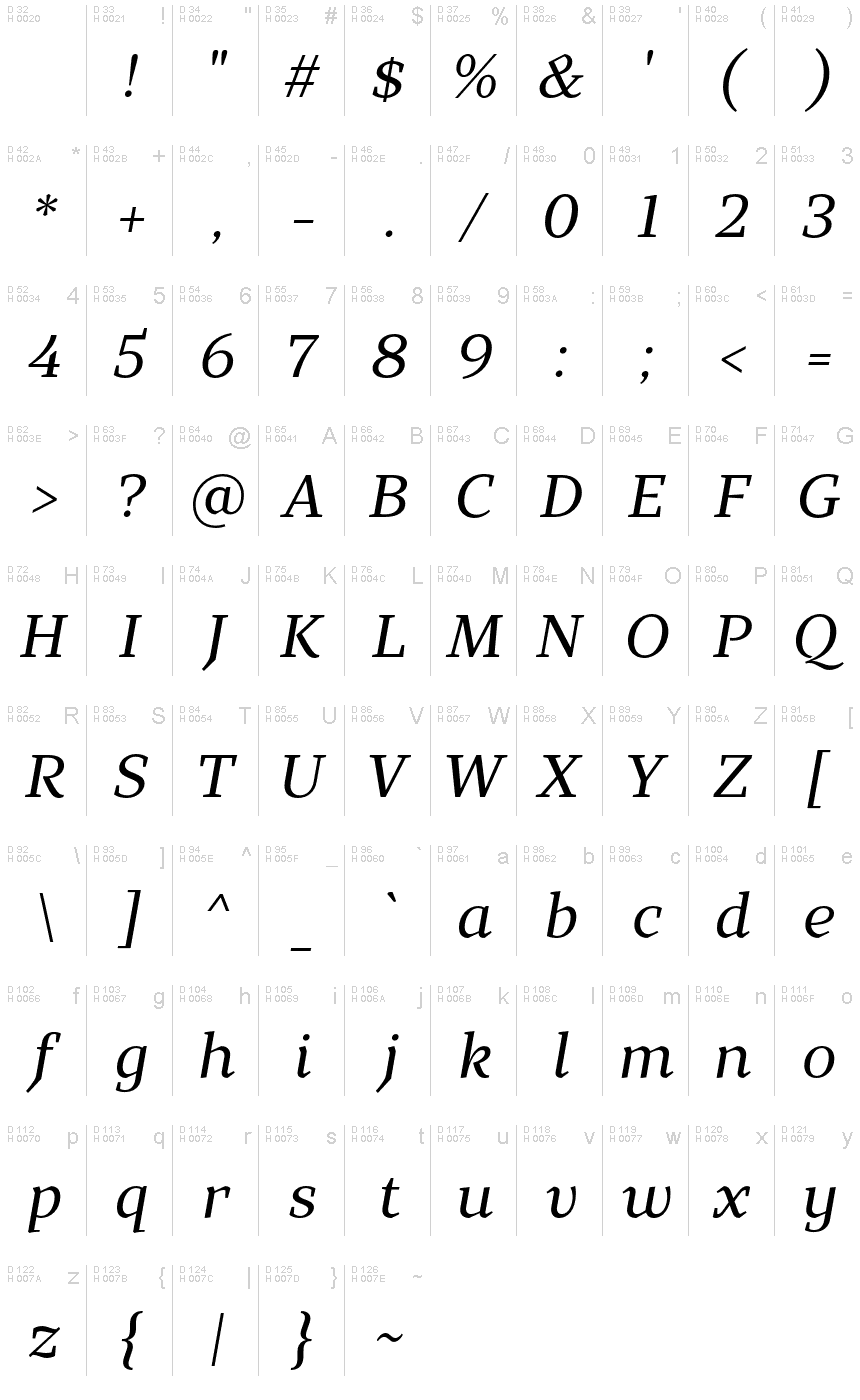
TT Bells Trial Italic
TT Bells Italic is a sophisticated serif font designed by TypeType Foundry. With its semi-light weight and elegant style, it's perfect for projects that require a touch of class and refinement. From wedding invitations to high-end fashion magazines, TT Bells Italic adds a touch of luxury to any design. Its italicized form brings a sense of movement and grace, making it ideal for projects that need to convey motion or progress, such as fitness logos or technology websites. Upgrade your design game with TT Bells Italic – the perfect font for all your high-end projects.
TT Bells Trial